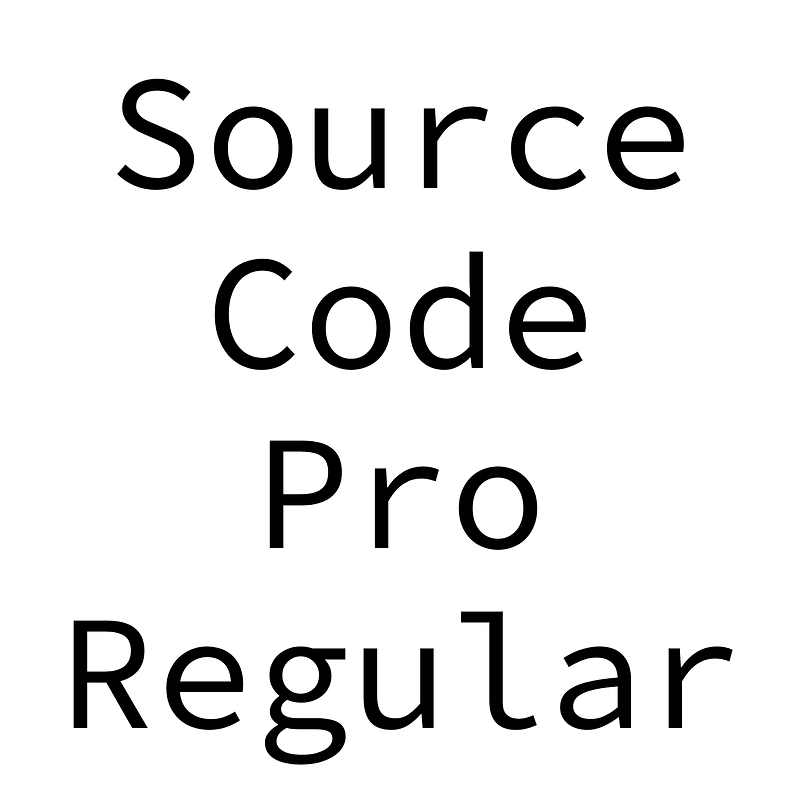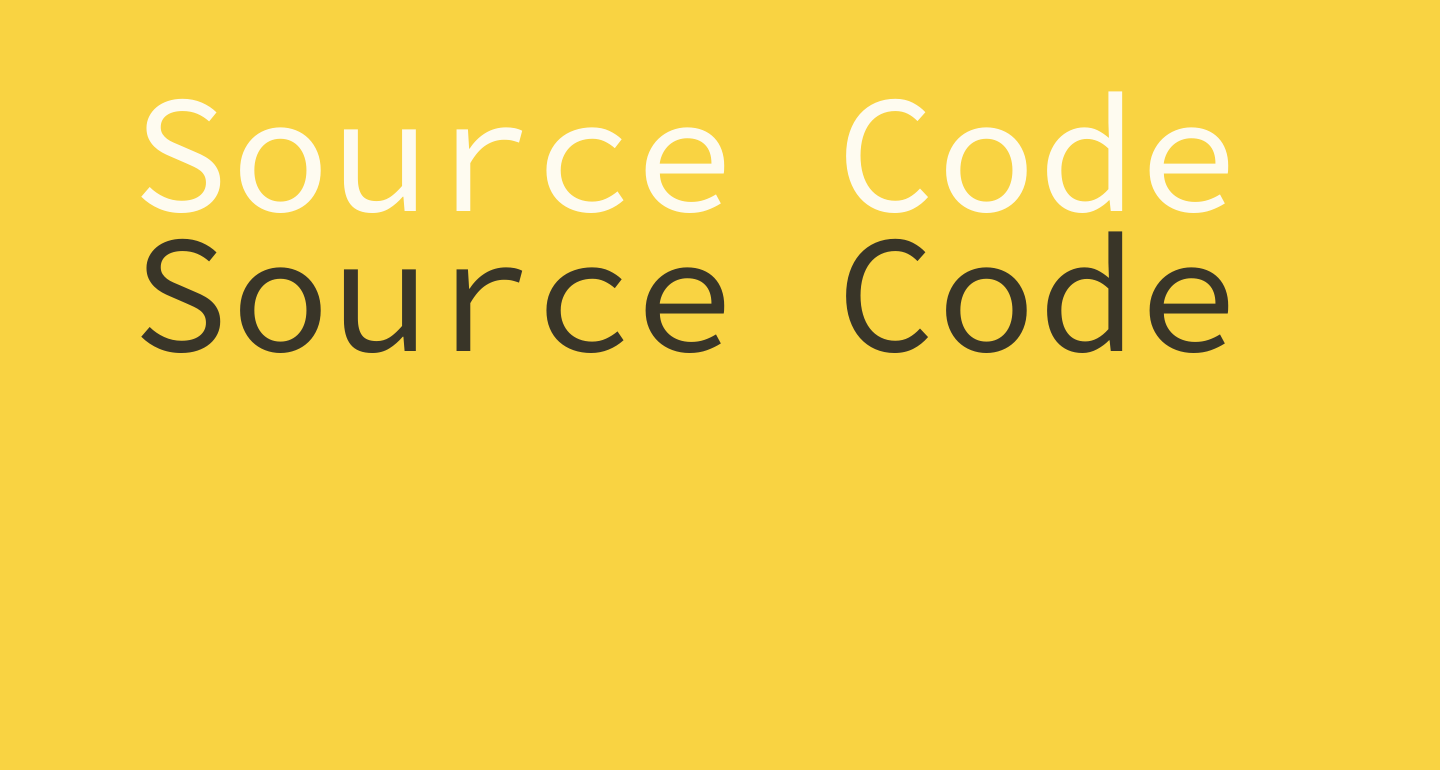
Sauce Code Pro Font . Download source code pro font family · free for commercial use · source code was designed by paul d. Explore source code designed by paul d. Source code preserves the design features and vertical proportions of source sans, but alters the glyph widths so that they are uniform across all. It has many weights and styles, fantastic for organizing complex information. Ligaturized source code pro with nerd font completly patched. Hunt, teo tuominen at adobe fonts. Updated source code pro (sauce code pro) font to v2.010/v1.030 (enhancement #33) updated octicons font to v3.2.0 plus latest master. A monospaced typeface with 14 styles, available from adobe. Source code pro is a highly versatile font perfect for coding and tech branding. Sauce code pro nerd font. Liga sauce code pro nerd font complete edition. Hunt as a companion to source sans. Contribute to yangchuoxian/saucecodepronerdfont development by creating an account on github.
It has many weights and styles, fantastic for organizing complex information. Hunt, teo tuominen at adobe fonts. Source code pro is a highly versatile font perfect for coding and tech branding. Explore source code designed by paul d. Sauce code pro nerd font. Liga sauce code pro nerd font complete edition. Ligaturized source code pro with nerd font completly patched. Hunt as a companion to source sans. A monospaced typeface with 14 styles, available from adobe. Updated source code pro (sauce code pro) font to v2.010/v1.030 (enhancement #33) updated octicons font to v3.2.0 plus latest master.
Sauce Code Pro Font A monospaced typeface with 14 styles, available from adobe. Updated source code pro (sauce code pro) font to v2.010/v1.030 (enhancement #33) updated octicons font to v3.2.0 plus latest master. Source code preserves the design features and vertical proportions of source sans, but alters the glyph widths so that they are uniform across all. Download source code pro font family · free for commercial use · source code was designed by paul d. Source code pro is a highly versatile font perfect for coding and tech branding. Hunt as a companion to source sans. Hunt, teo tuominen at adobe fonts. A monospaced typeface with 14 styles, available from adobe. Ligaturized source code pro with nerd font completly patched. Liga sauce code pro nerd font complete edition. Sauce code pro nerd font. Explore source code designed by paul d. It has many weights and styles, fantastic for organizing complex information. Contribute to yangchuoxian/saucecodepronerdfont development by creating an account on github.
Source Code Pro Font FREE Download & Similar Fonts FontGet Sauce Code Pro Font Source code pro is a highly versatile font perfect for coding and tech branding. Contribute to yangchuoxian/saucecodepronerdfont development by creating an account on github. Ligaturized source code pro with nerd font completly patched. Explore source code designed by paul d. Hunt as a companion to source sans. It has many weights and styles, fantastic for organizing complex information. Liga sauce. Sauce Code Pro Font.
Source Code Pro Font download free Sauce Code Pro Font Updated source code pro (sauce code pro) font to v2.010/v1.030 (enhancement #33) updated octicons font to v3.2.0 plus latest master. Hunt as a companion to source sans. Liga sauce code pro nerd font complete edition. It has many weights and styles, fantastic for organizing complex information. Source code pro is a highly versatile font perfect for coding and tech branding.. Sauce Code Pro Font.
Source Code Pro Bold Font xFonts.pro Sauce Code Pro Font Contribute to yangchuoxian/saucecodepronerdfont development by creating an account on github. Explore source code designed by paul d. Sauce code pro nerd font. Hunt, teo tuominen at adobe fonts. Updated source code pro (sauce code pro) font to v2.010/v1.030 (enhancement #33) updated octicons font to v3.2.0 plus latest master. Download source code pro font family · free for commercial use ·. Sauce Code Pro Font.
Source Code Pro free Font What Font Is Sauce Code Pro Font Download source code pro font family · free for commercial use · source code was designed by paul d. Hunt as a companion to source sans. A monospaced typeface with 14 styles, available from adobe. Contribute to yangchuoxian/saucecodepronerdfont development by creating an account on github. Updated source code pro (sauce code pro) font to v2.010/v1.030 (enhancement #33) updated octicons font. Sauce Code Pro Font.
Source Code Pro free font Sauce Code Pro Font A monospaced typeface with 14 styles, available from adobe. Source code pro is a highly versatile font perfect for coding and tech branding. Hunt as a companion to source sans. Ligaturized source code pro with nerd font completly patched. Hunt, teo tuominen at adobe fonts. It has many weights and styles, fantastic for organizing complex information. Contribute to yangchuoxian/saucecodepronerdfont development. Sauce Code Pro Font.
How to use the Adobe Source Code Pro font? (7 Solutions!!) YouTube Sauce Code Pro Font A monospaced typeface with 14 styles, available from adobe. Sauce code pro nerd font. Explore source code designed by paul d. It has many weights and styles, fantastic for organizing complex information. Liga sauce code pro nerd font complete edition. Hunt as a companion to source sans. Source code preserves the design features and vertical proportions of source sans, but. Sauce Code Pro Font.
Source Code Pro free font Sauce Code Pro Font A monospaced typeface with 14 styles, available from adobe. Contribute to yangchuoxian/saucecodepronerdfont development by creating an account on github. Ligaturized source code pro with nerd font completly patched. Sauce code pro nerd font. Source code pro is a highly versatile font perfect for coding and tech branding. Download source code pro font family · free for commercial use · source. Sauce Code Pro Font.
Source Code Pro Font Free Fonts Vault Sauce Code Pro Font Sauce code pro nerd font. Source code pro is a highly versatile font perfect for coding and tech branding. Hunt, teo tuominen at adobe fonts. Updated source code pro (sauce code pro) font to v2.010/v1.030 (enhancement #33) updated octicons font to v3.2.0 plus latest master. Download source code pro font family · free for commercial use · source code was. Sauce Code Pro Font.
Best Fonts for Programming / Developers Sauce Code Pro Font Source code pro is a highly versatile font perfect for coding and tech branding. Download source code pro font family · free for commercial use · source code was designed by paul d. A monospaced typeface with 14 styles, available from adobe. Hunt as a companion to source sans. Sauce code pro nerd font. Source code preserves the design features. Sauce Code Pro Font.